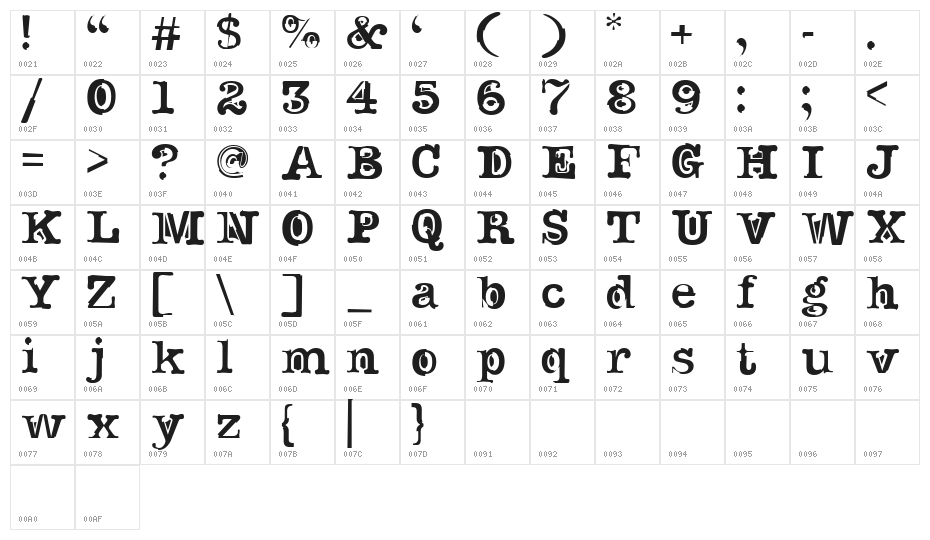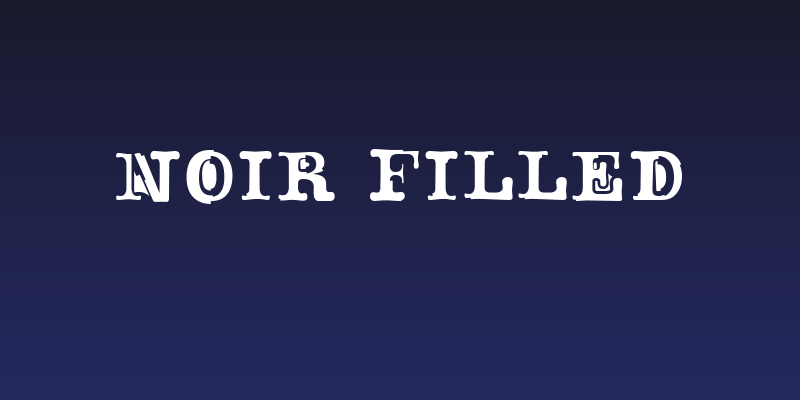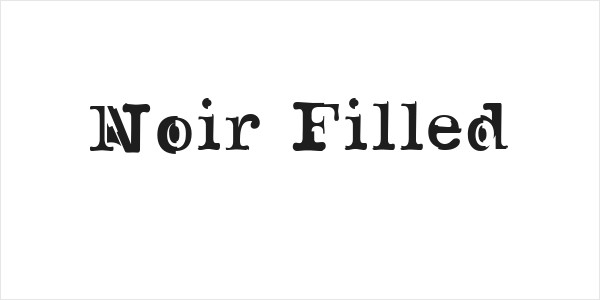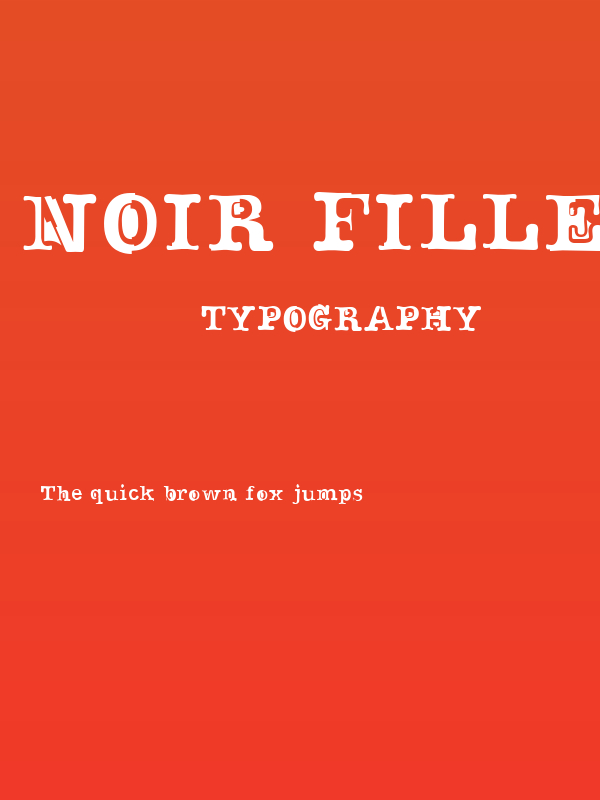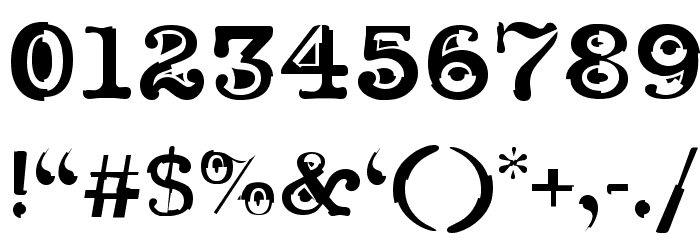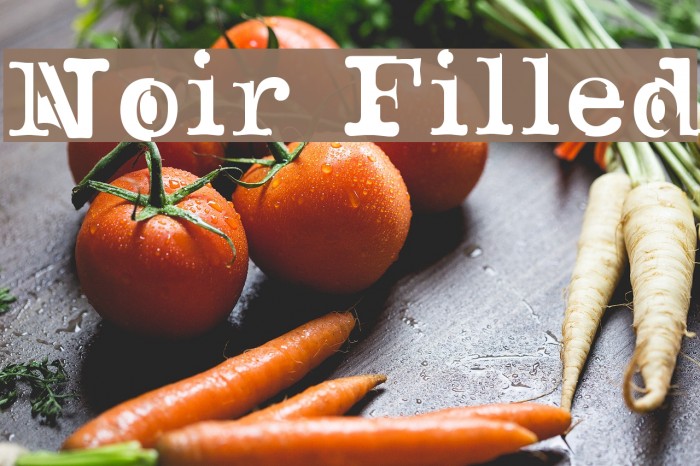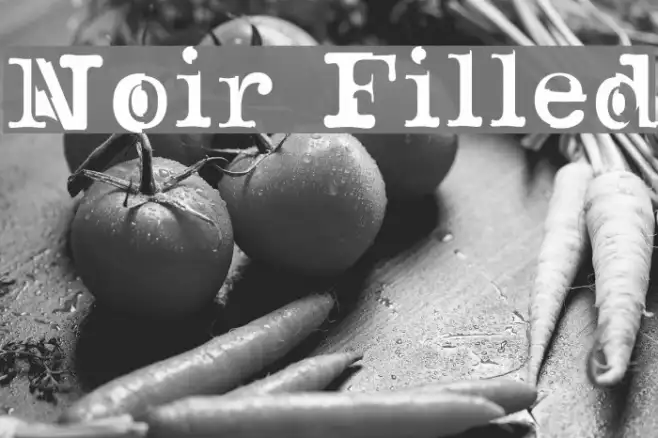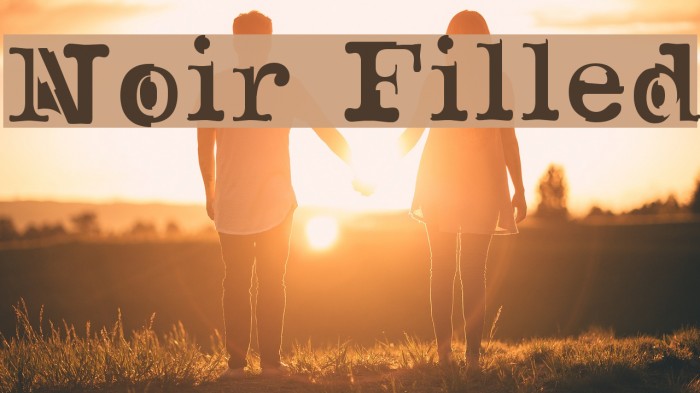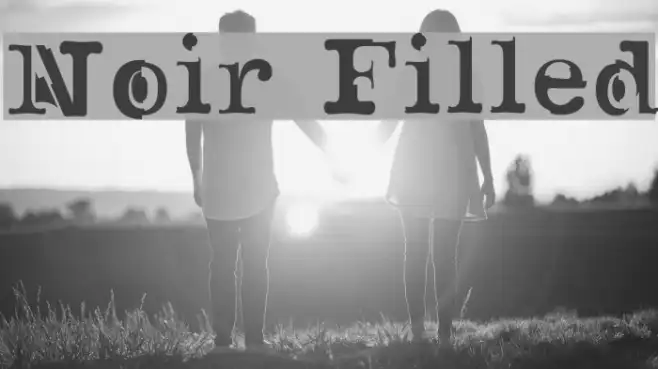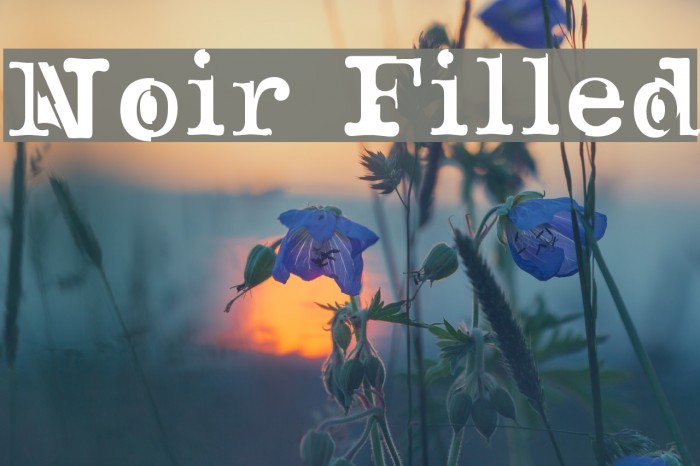
Noir Filled Font
Noir Filled Description
This font features a bold and expressive style with thick, filled strokes that create a strong visual impact. The characters have a distinct, slightly rounded appearance with pronounced serifs that add a touch of vintage charm. The uppercase letters are robust and commanding, while the lowercase letters maintain a consistent weight and style. Numbers and special characters are designed to match the overall aesthetic, ensuring a cohesive look across all text elements. The font's boldness and unique character shapes make it ideal for attention-grabbing designs.
| Overall Style | Vintage |
| Proposed Projects | Ideal for poster designs, branding projects, book covers, and any creative work that requires a bold, vintage aesthetic. |